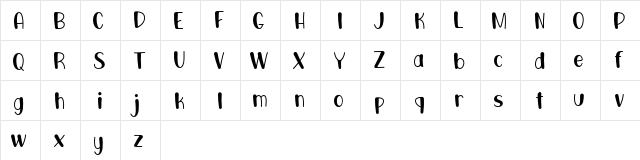
Mongkey werch demo Regular
| Foundry | LetterStock |
| Designer | LetterStock |
Design Context for Mongkey werch demo Typeface
Mongkey werch demo is a composed and adaptable typeface that performs quietly and consistently across a wide range of design contexts.